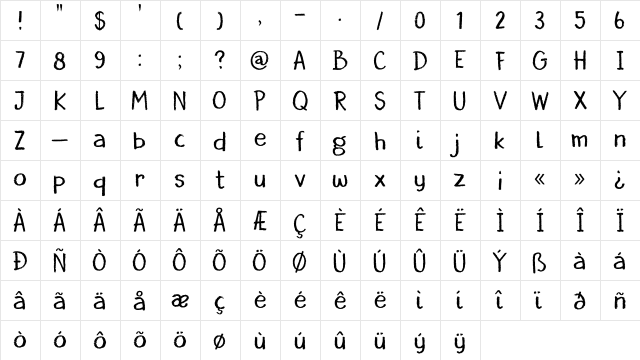
DK Borrowdale Regular
| Foundry | David Kerkhoff |
| Designer | David Kerkhoff |
Design Context for DK Borrowdale Typeface
DK Borrowdale offers clean, dependable letterforms without strong stylistic allegiance, making it a practical choice for designers who need flexibility.